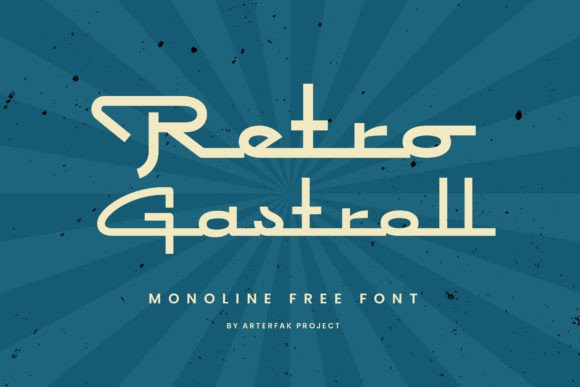
Retro Gastroll, Vintage Script Font with Groovy Vibes
Retro Gastroll is a retro monoline display font crafted to bring classic 70s‑80s typography vibes into modern creative projects. With its neat, straight yet dynamic letterforms, this font evokes vintage charm and relaxed energy — perfect for designs that seek a nostalgic, old‑school feel. Whether you are creating for apparel, posters, branding, or signage, Retro Gastroll adds timeless style and legibility to any project. Embracing the essence of vintage design, Retro Gastroll seamlessly fits into various creative styles while standing out among other retro groovy display font styles. Its versatility makes it an ideal choice for both digital projects and print work, allowing designers to capture the spirit of a bygone era with a contemporary twist. Let Retro Gastroll be the cornerstone of your creative endeavors, effortlessly bridging the gap between nostalgia and modern aesthetics.
- Full glyph set — uppercase, lowercase, numbers, punctuation, multilingual support, stylized alternates and ligatures
Retro Gastroll brings together retro charm and modern flexibility: its clean monoline strokes make it legible and versatile, while its vintage aesthetic adds character and uniqueness to your designs. It’s especially well‑suited for any project seeking a timeless, slightly nostalgic, or “old‑school meets fresh” vibe. As a free font with a full commercial‑use license, it’s a low‑cost way to elevate apparel, branding, and print‑on‑demand products without compromising style.
| Style / Vibe | Retro, vintage, neat monoline, 70s‑80s aesthetic | Neutral modern monoline | Retro display but heavier sans‑serif style |
| Best Use Case | Retro T‑shirts, posters, vintage branding, signage, decals | Minimalist logos and modern product labels | Stylized posters or vintage‑style headlines |